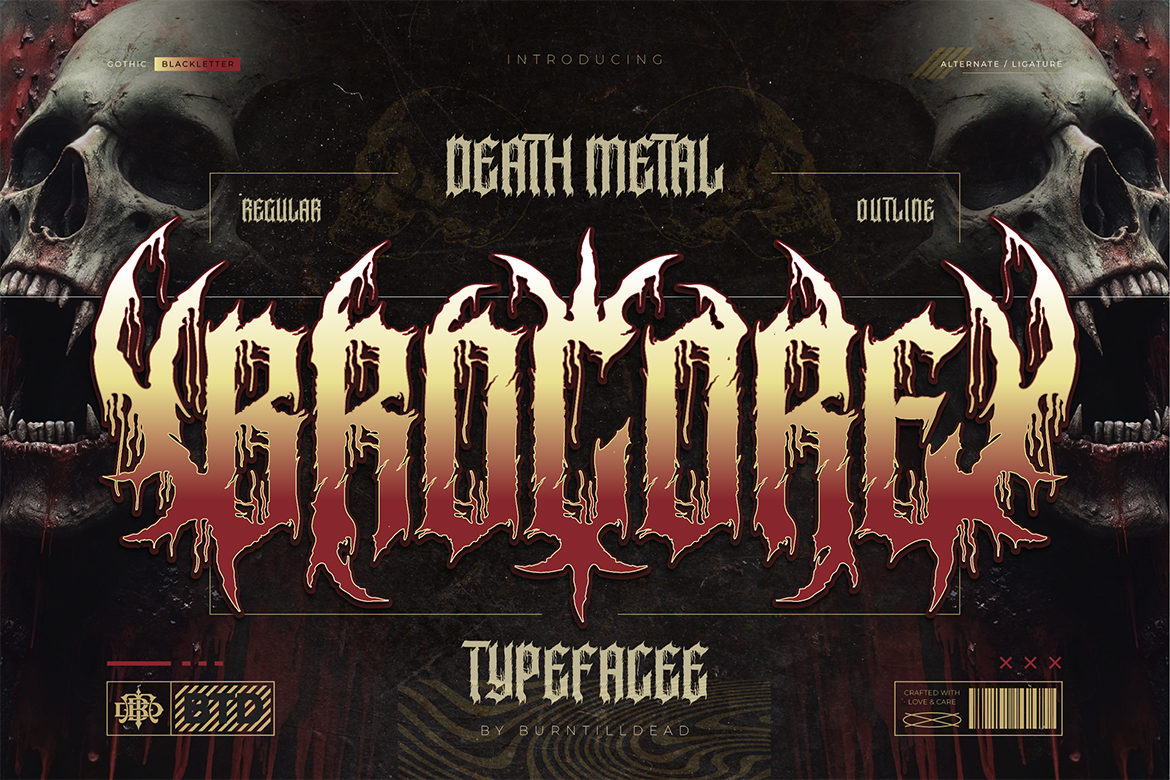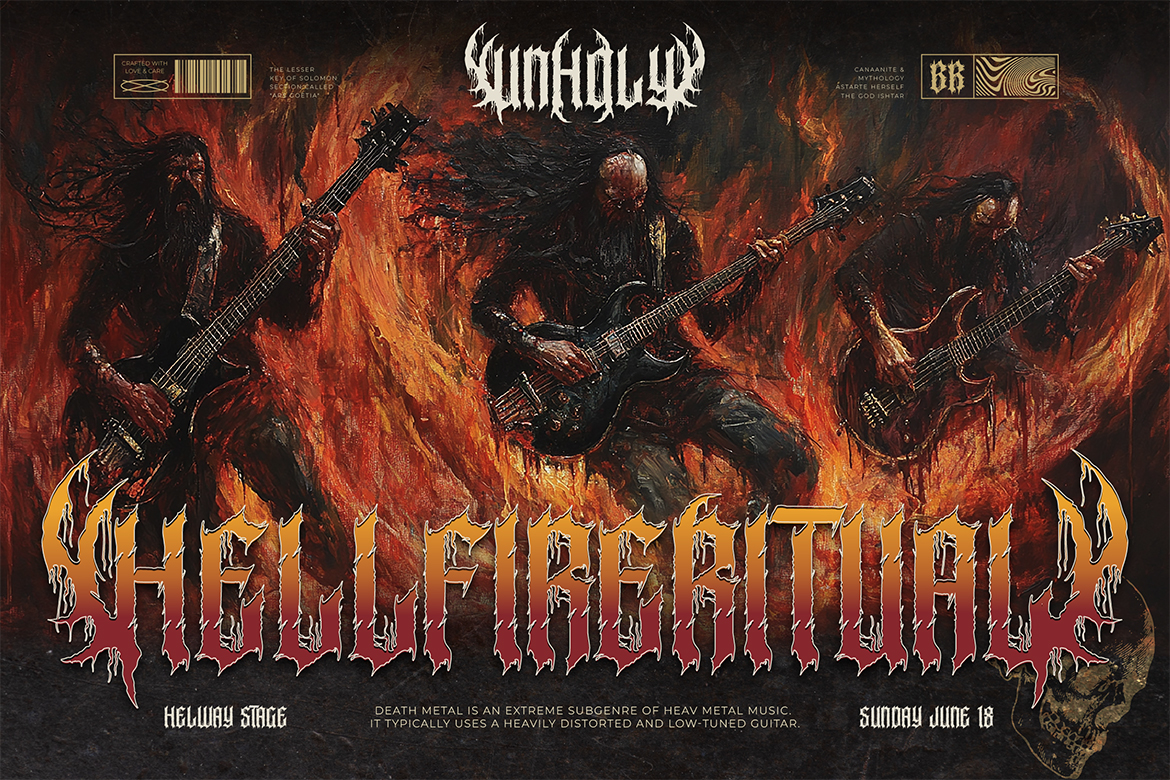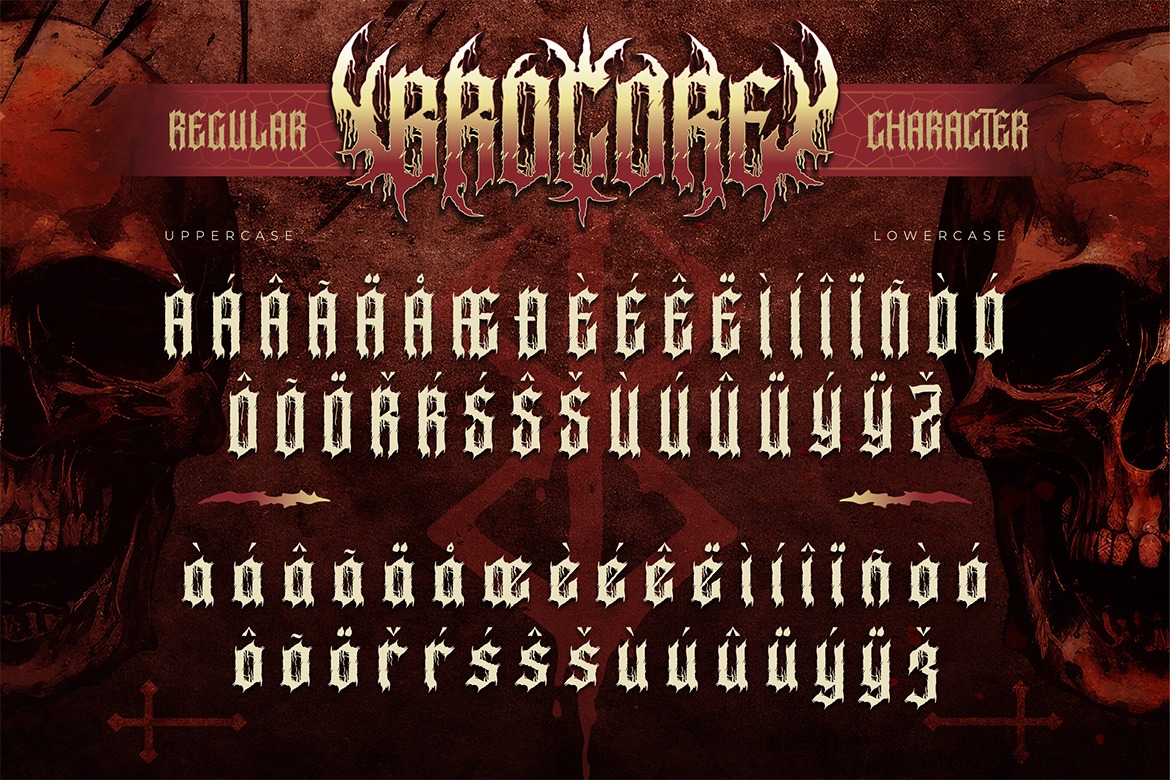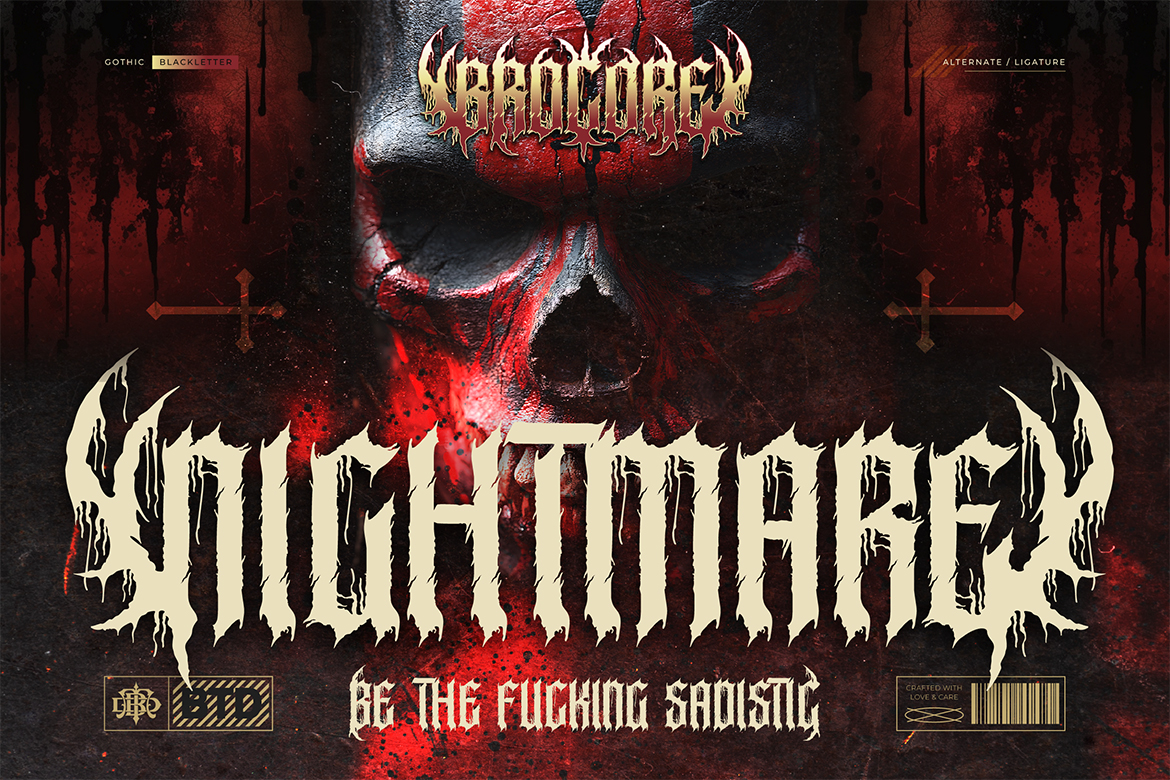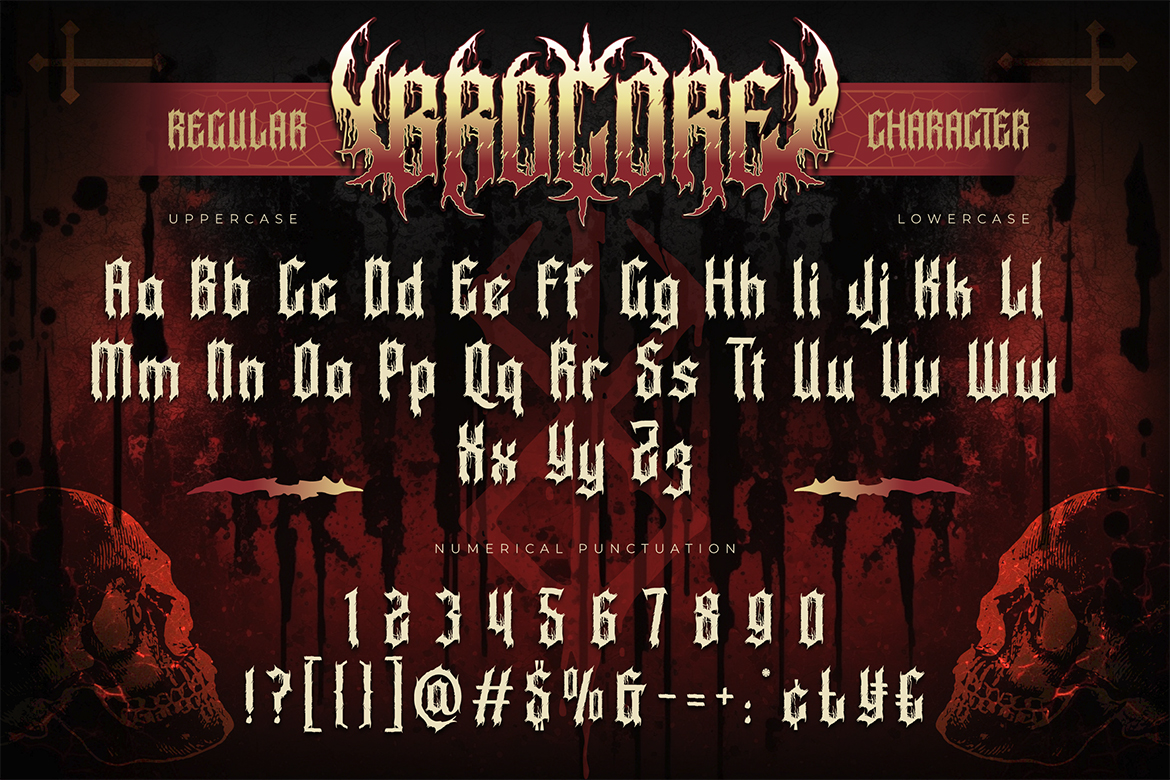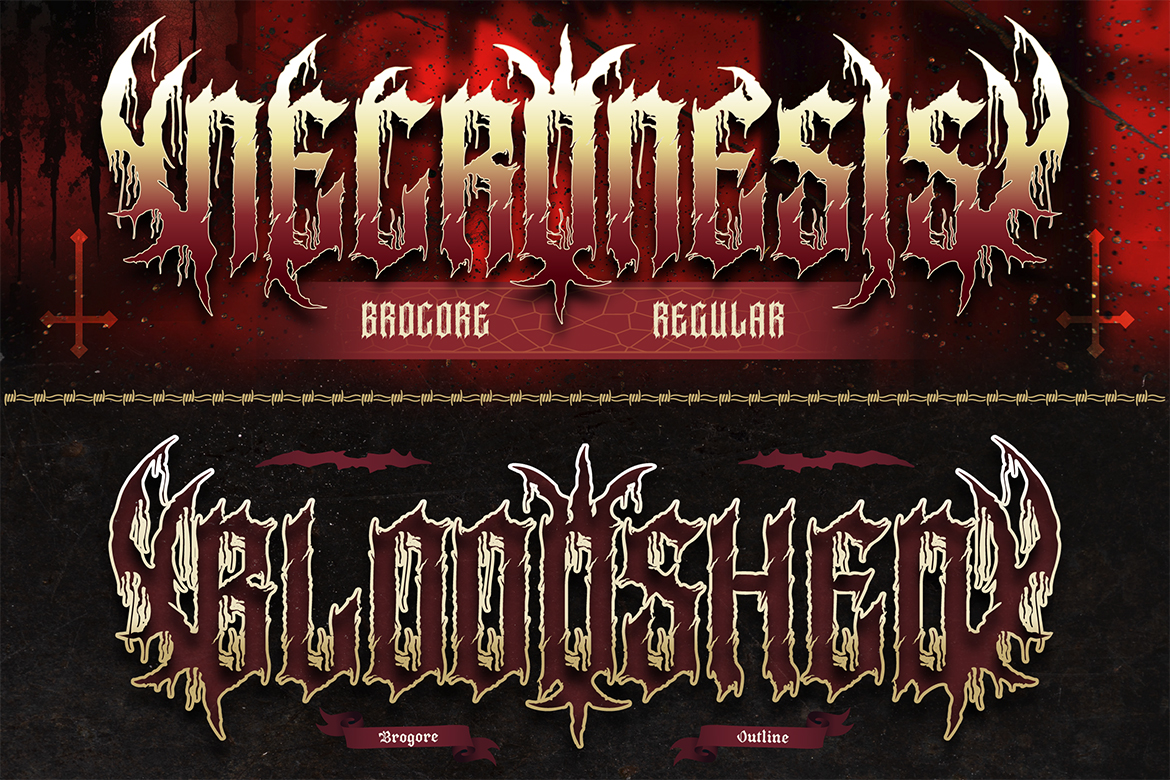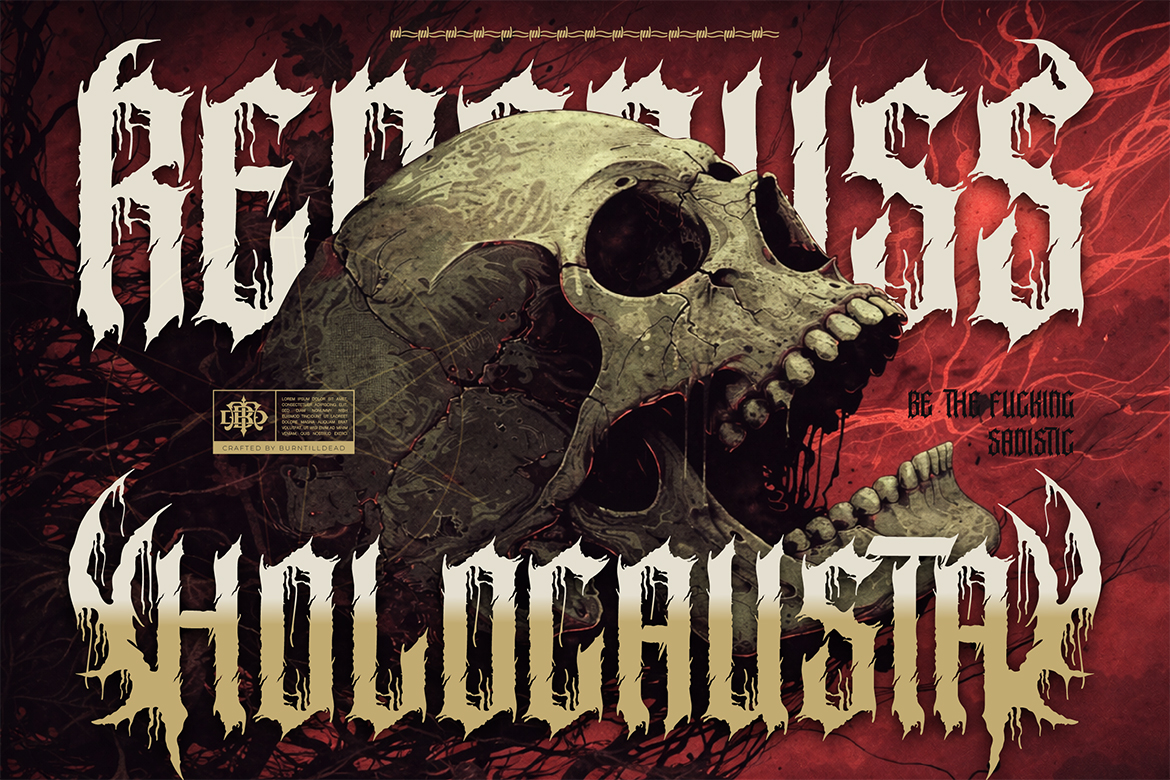
Brocore
Brocore is a brutal death metal blackletter typeface made for extreme visuals. Inspired by underground metal logos, gothic lettering, and dark horror aesthetics, this font is sharp, aggressive, and unapologetically bold.
Each letter is designed with dramatic spikes, dripping edges, and strong gothic structure—perfect for heavy branding and high-impact typography.
Brocore comes with Regular and Outline styles, plus alternate characters and ligatures to give you more creative freedom when designing logos or band names.
This typeface is ideal for projects that need a dark, intense, and rebellious vibe.
Perfect For:
- Death metal & black metal band logos
- Album covers & music posters
- Festival and gig flyers
- Streetwear & merch design
- Tattoo-inspired artwork
- Horror movie titles
- Dark branding & edgy packaging